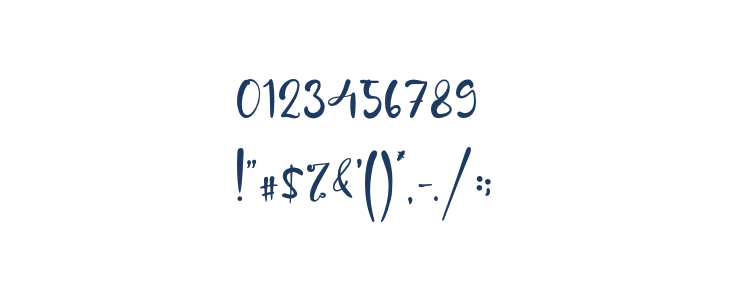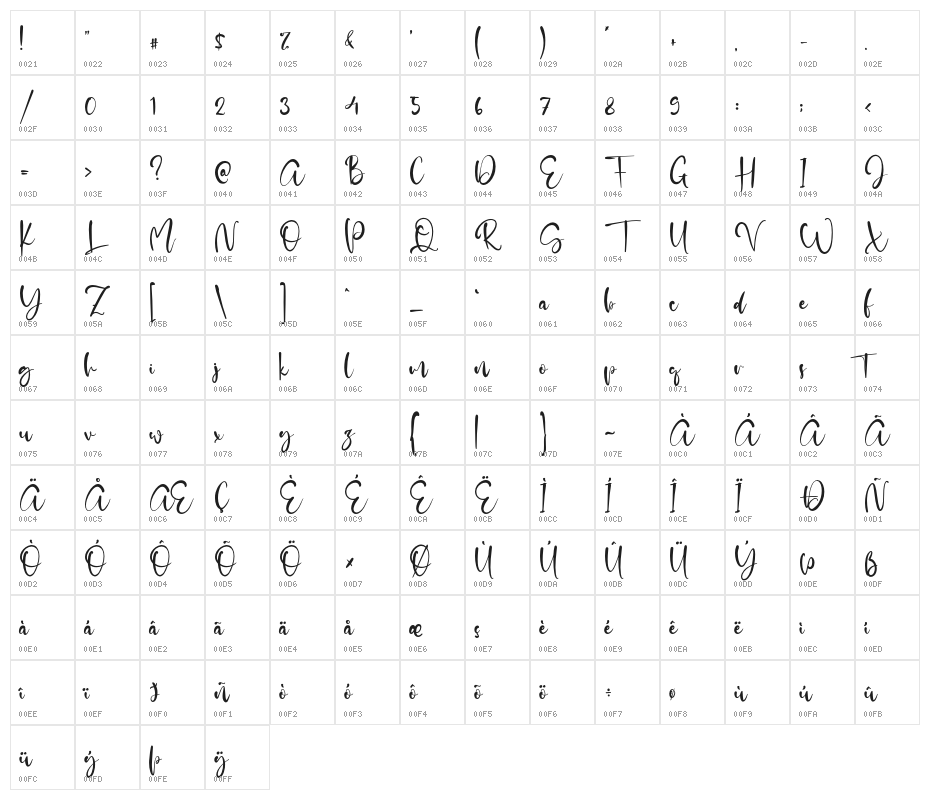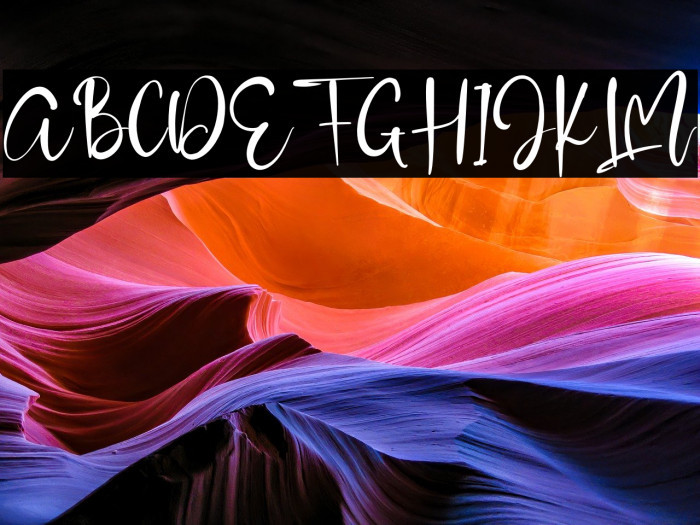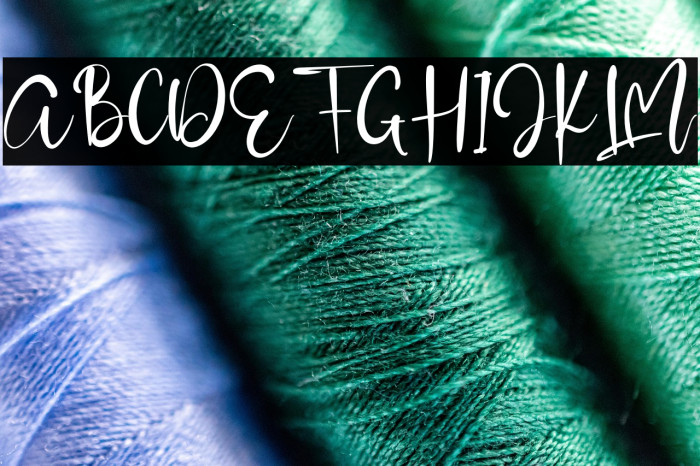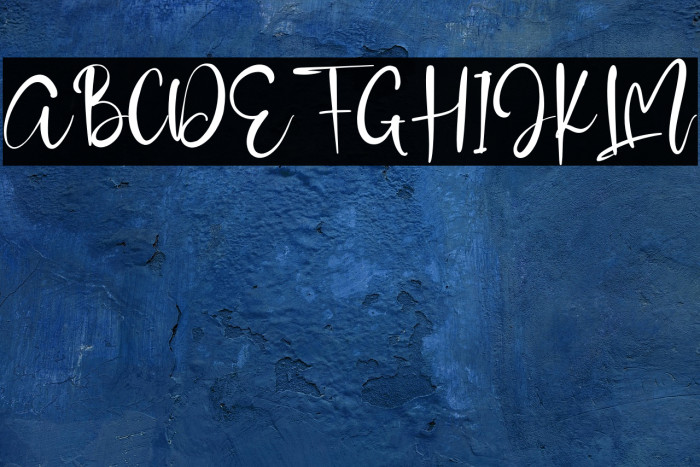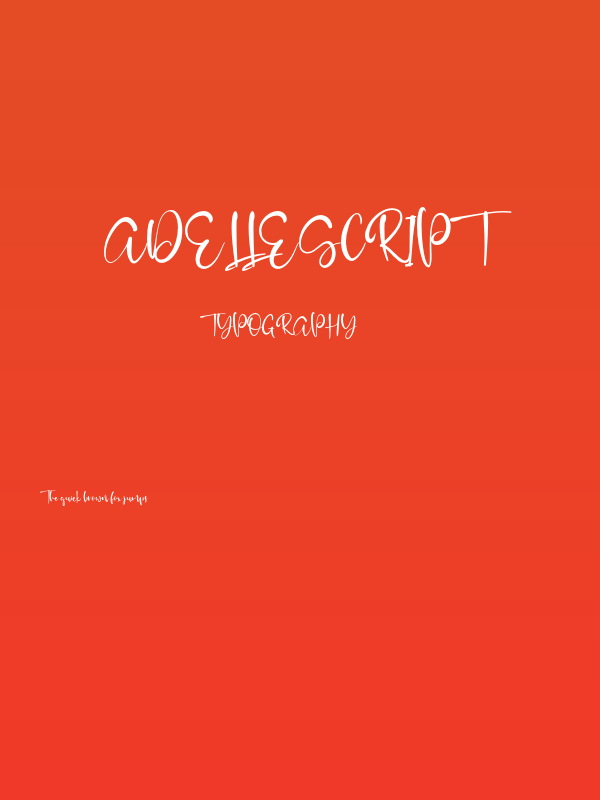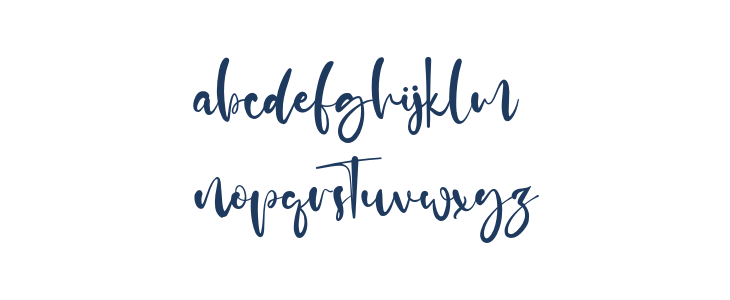
AdelleScript Font
AdelleScript Description
This font exudes a lively and expressive character, with its flowing script style that mimics the fluidity of natural handwriting. The uppercase letters are elegantly curved, with a slight slant that adds a dynamic feel. The lowercase letters maintain a consistent rhythm, featuring loops and swashes that enhance its decorative appeal. The numerals are bold and clear, ensuring legibility while retaining the font's artistic flair. Special characters are thoughtfully designed, integrating seamlessly with the overall aesthetic. This font is perfect for projects that require a personal touch, such as invitations, greeting cards, or branding materials that aim to convey warmth and creativity.